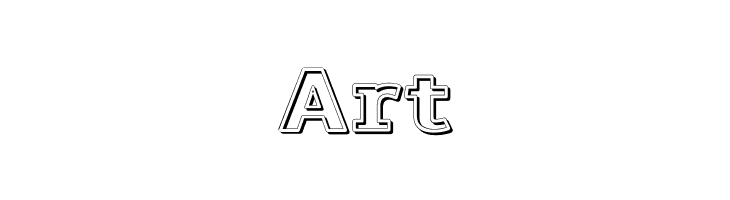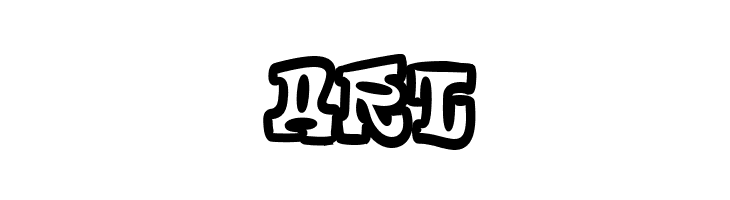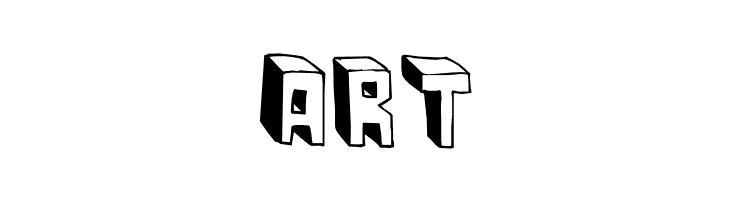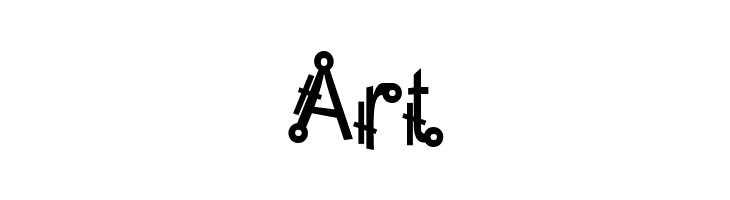
A modern, outlined font with a bold, geometric style.
A playful, blocky font with a geometric, stone-like design.
A bold, decorative font with diagonal stripes across each character.
A bold, decorative font with intricate maze-like patterns.
A bold, geometric outline font with a modern and futuristic style.
An outline font with a bold, geometric style and double-line effect.
A fragmented, artistic font with a grunge aesthetic and high readability.
A bold, decorative font with retro and art deco influences.
A bold, geometric font inspired by origami, featuring sharp angles and creative use of negative space.
A bold, dot-patterned font with a modern and artistic style.
A bold, geometric font with overlapping circular patterns creating a modern and dynamic look.